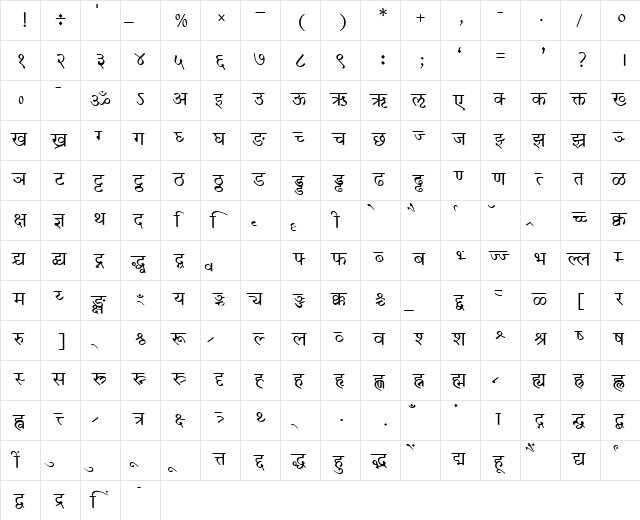
ITRDeshdut Light
Design Context for ITRDeshdut Typeface
ITRDeshdut is a composed and adaptable typeface that performs quietly and consistently across a wide range of design contexts. Its slender proportions lend an understated elegance to any composition.